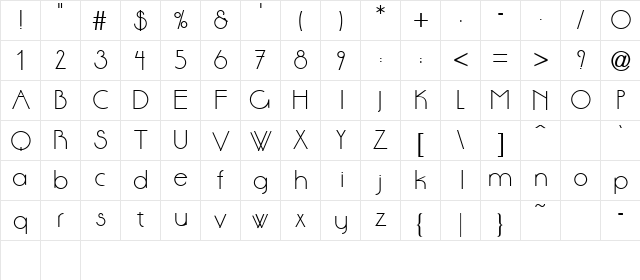
AMOROUS Regular
Design Context for AMOROUS Typeface
AMOROUS offers clean, dependable letterforms without strong stylistic allegiance, making it a practical choice for designers who need flexibility.